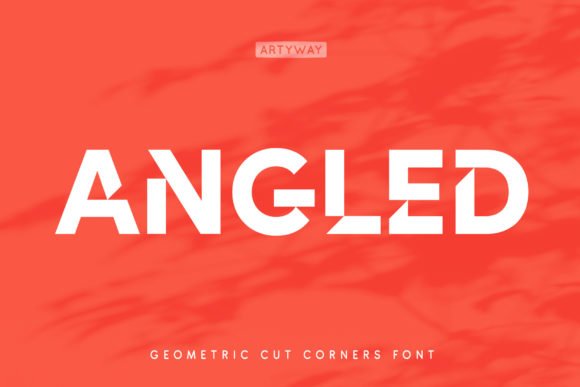
Introduction to Angled Font
Angled is a bold and geometric styled display font.
This techno looking font is suitable for designs such as t-shirts, sportswear, logos, advertisements, clothing, and more .
Key Features of Angled Font